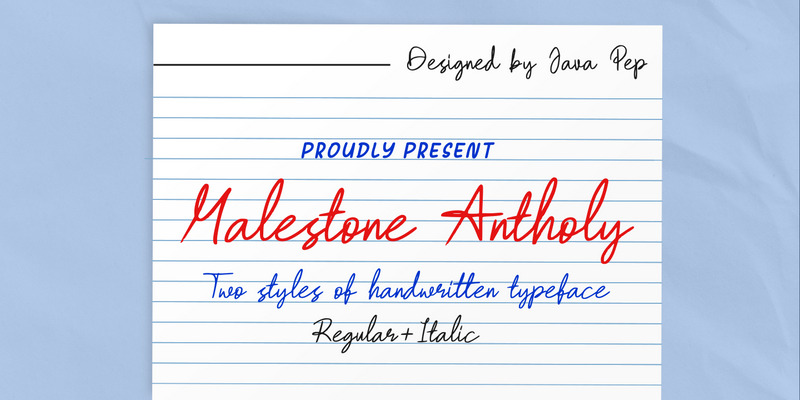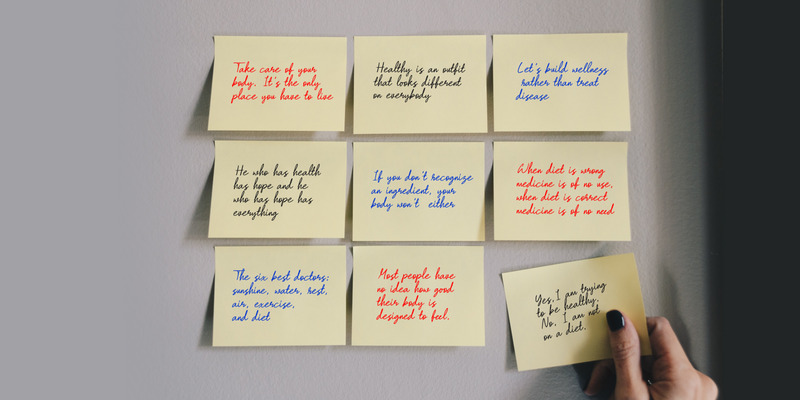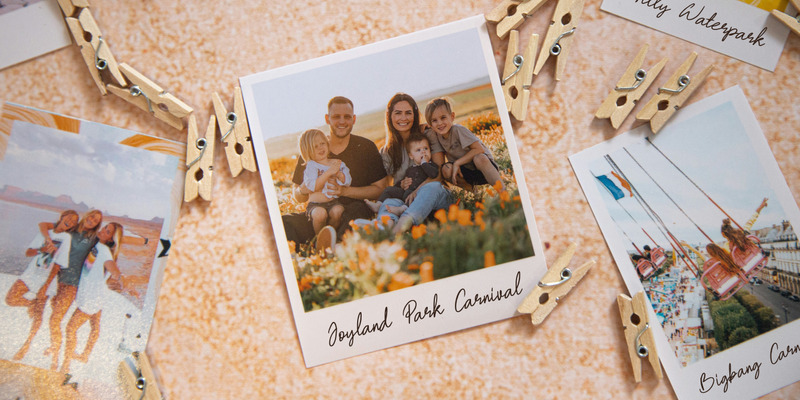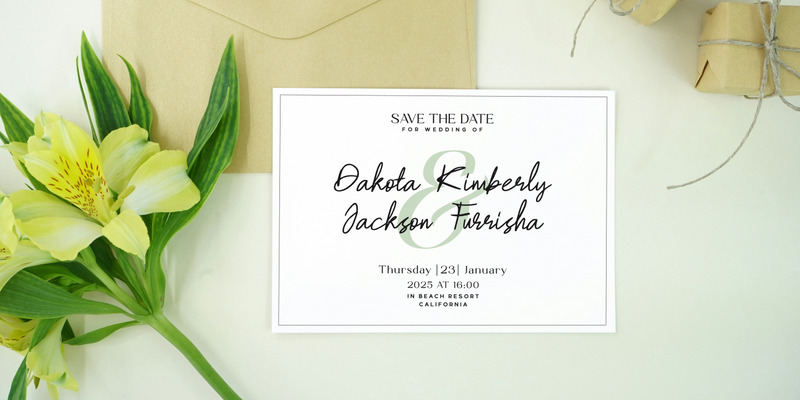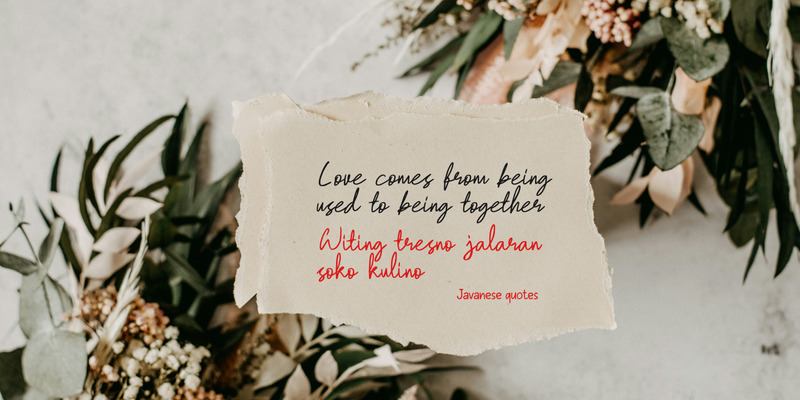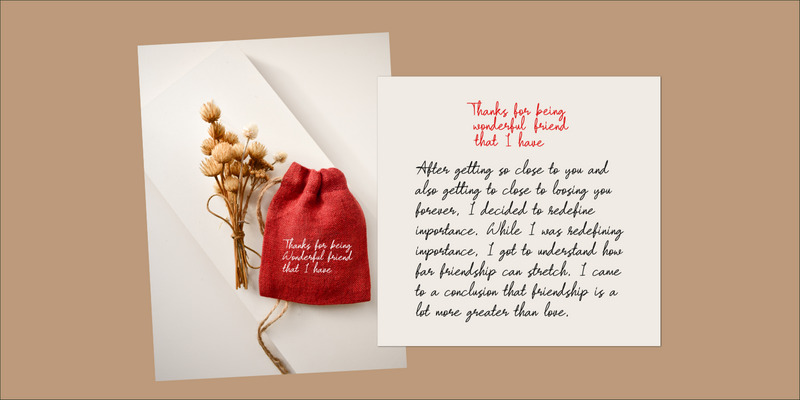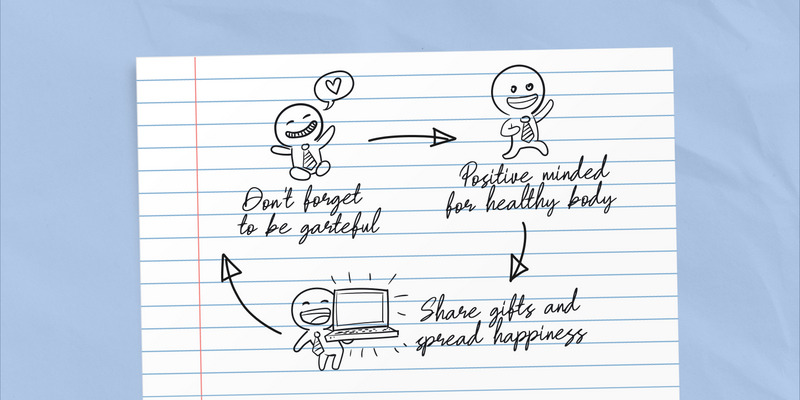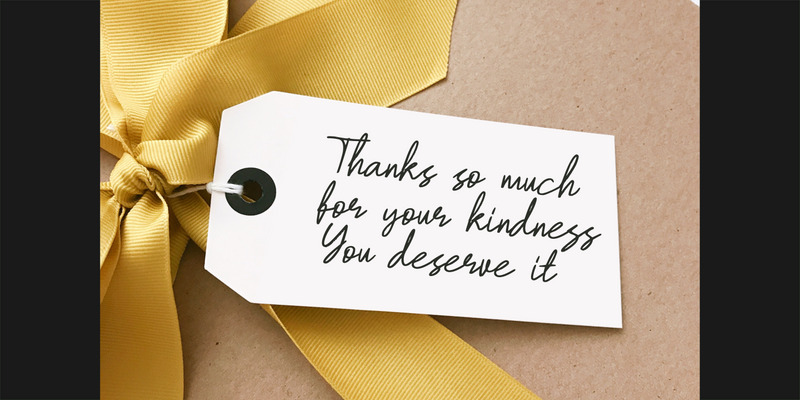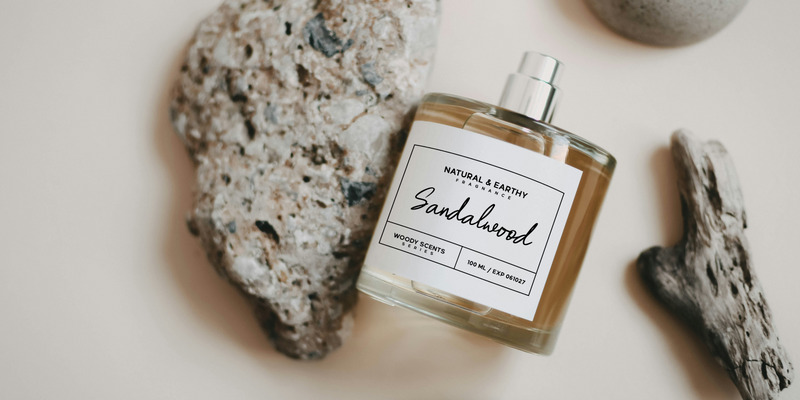
Malestone Antholy / Handwriting type
Malestone Antholy is handwritting typeface that has natural stroke and shape will make your project design more standout. Malestone Antholy font have two style linked, regular and italic styles, you can adjust this style according your design and purposes. This font is perfect for qoutes, branding, logotype, greeting card, poems, sticky notes, and etc.
• Uppercase, lowercase, numeral, and punctuation
• Multilingual support
• Pua encoded